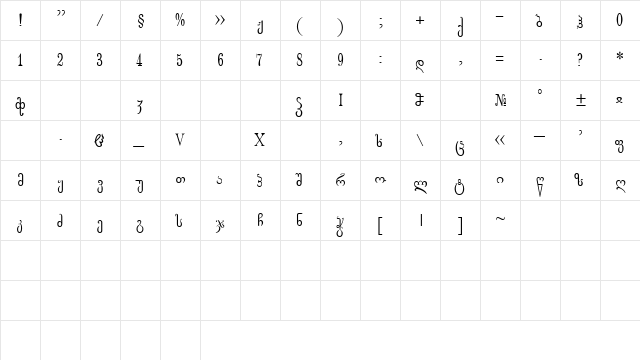
Dedaena_GNT Regular
Design Context for Dedaena_GNT Typeface
Dedaena_GNT takes a measured approach to typography — its balanced proportions and neutral character make it a reliable workhorse for both digital and print work.